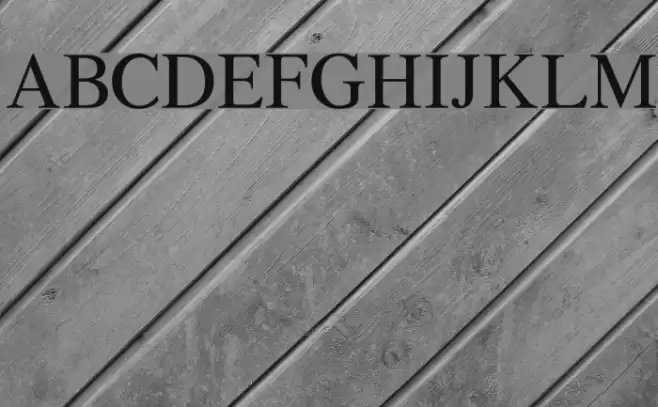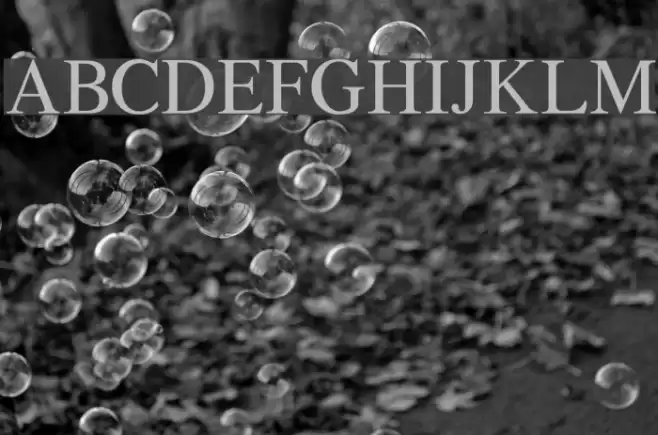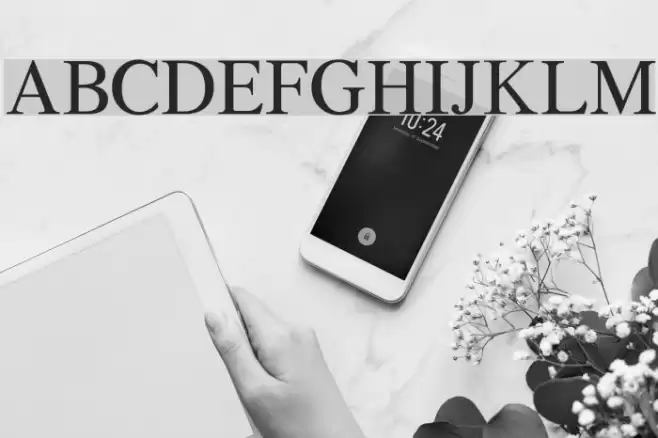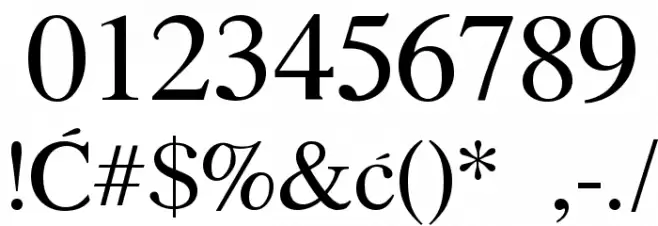
Croat Font
Croat Description
This font exhibits a classic serif style characterized by its elegant and refined letterforms. The uppercase letters are bold and commanding, with a traditional serif that enhances readability. The lowercase letters maintain a consistent style, offering a harmonious balance between the thick and thin strokes. Numbers are clear and well-defined, making them suitable for both display and text purposes. Special characters are thoughtfully designed, maintaining the overall aesthetic of the font. The font's design is versatile, making it suitable for a variety of applications.
A classic serif font with elegant and refined letterforms, suitable for versatile applications from Uncategorized fonts.
- Proposed Projects: Ideal for editorial design, book covers, formal invitations, and branding projects that require a touch of elegance.
- Overall Style: Classic
- Use Case: Headlines, Body text, Logos